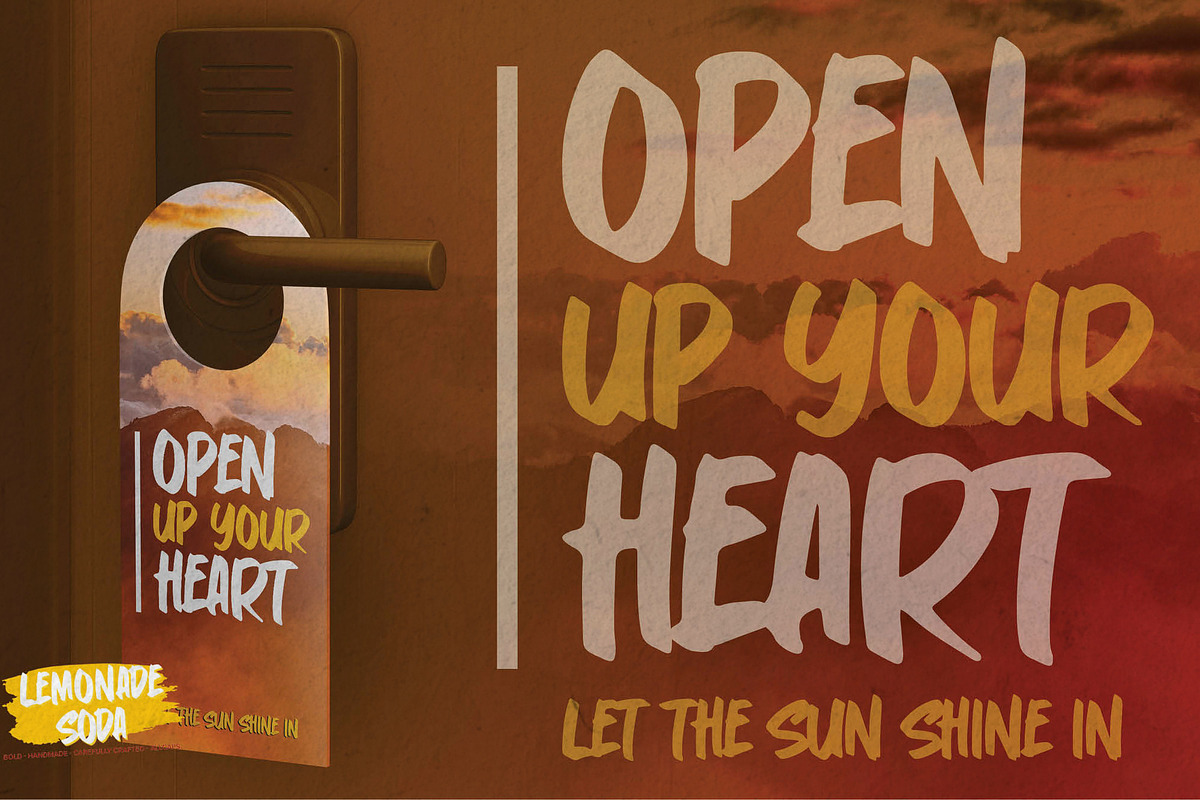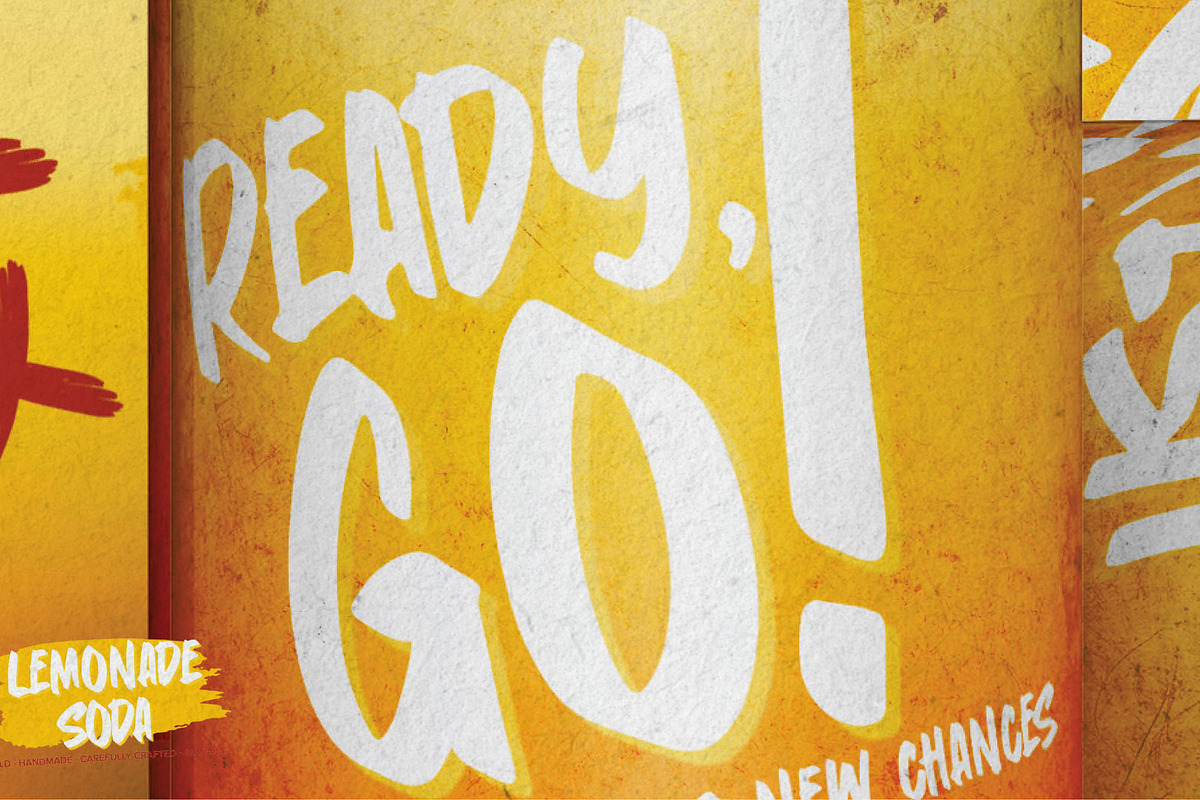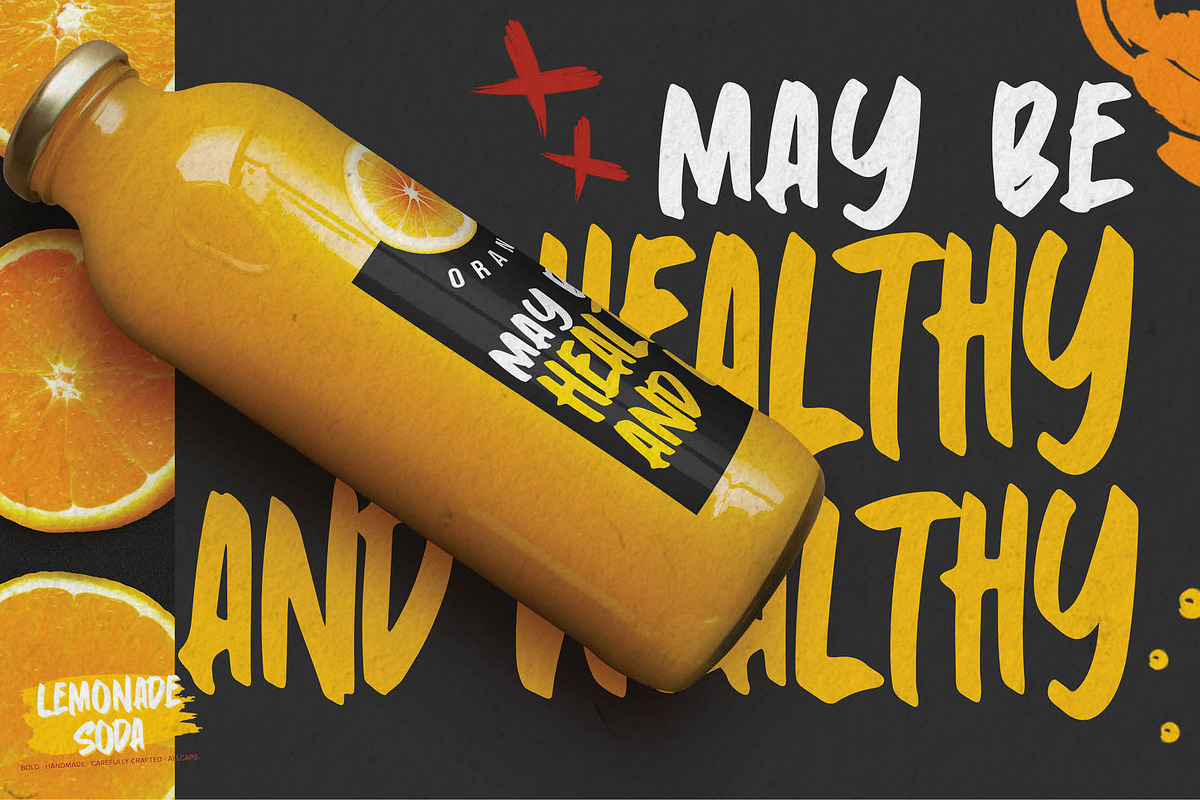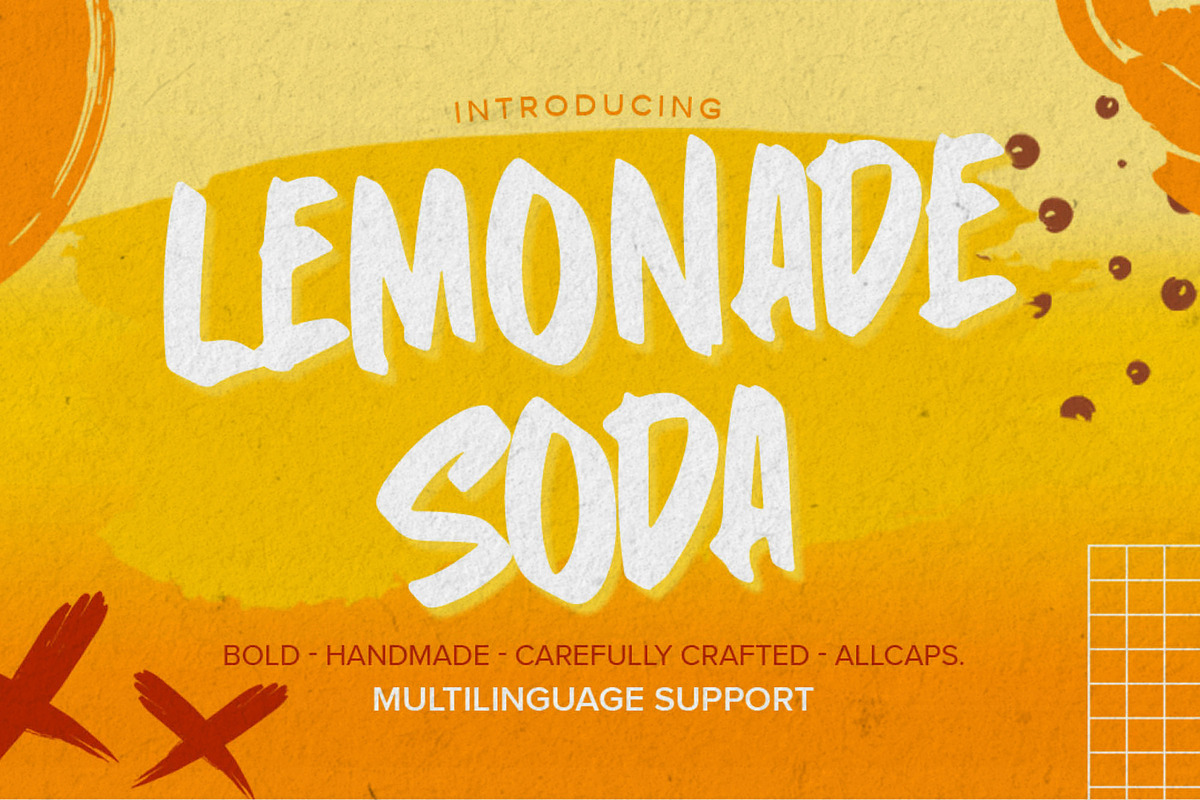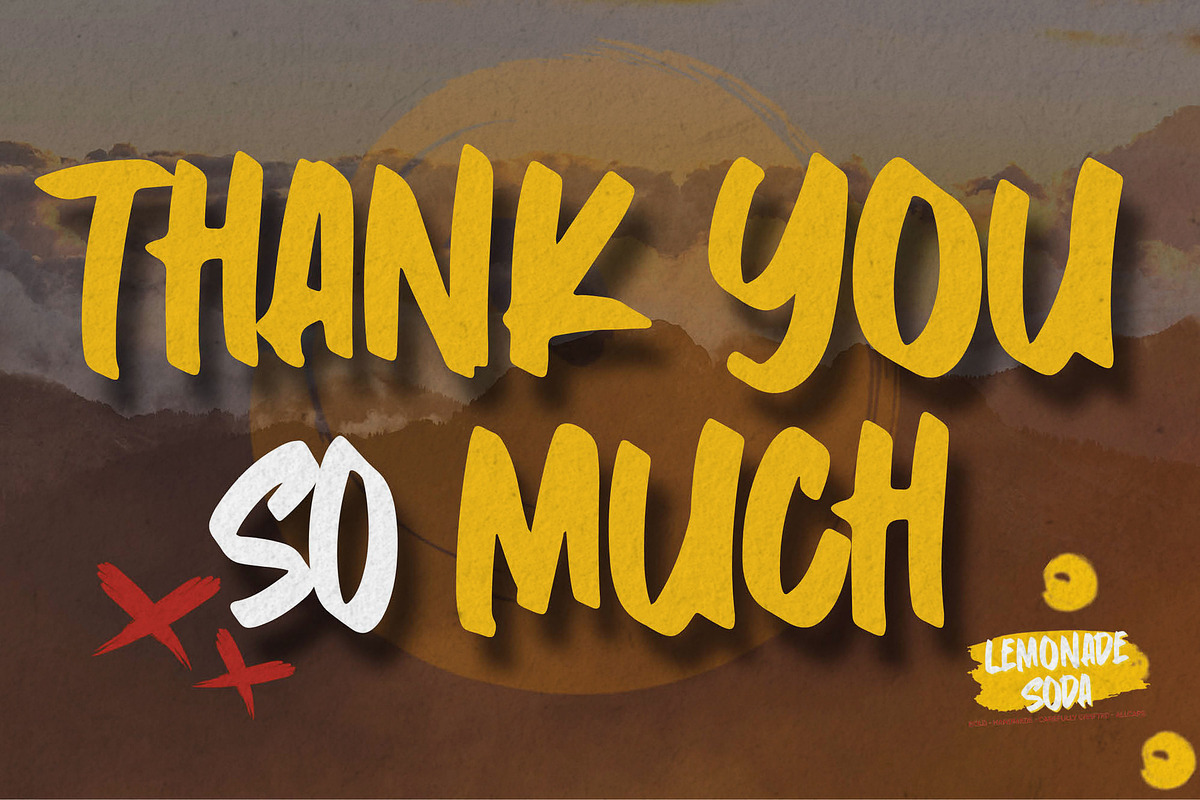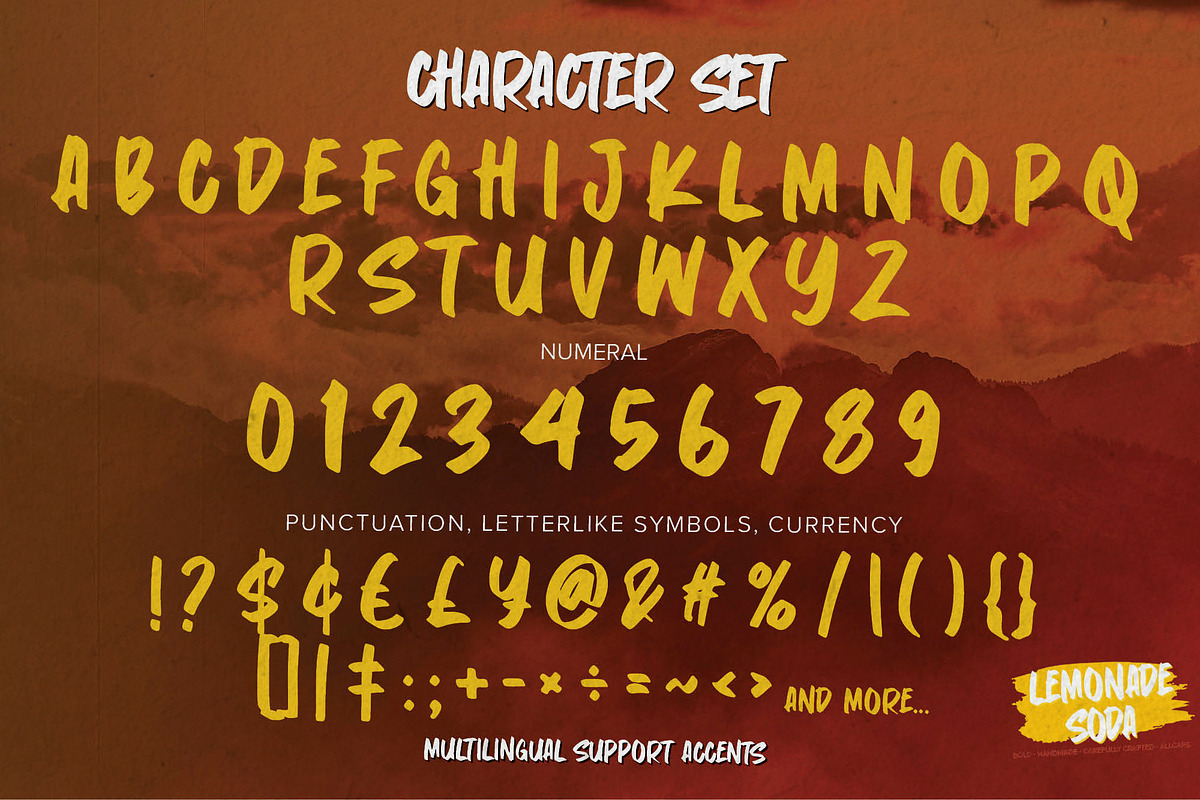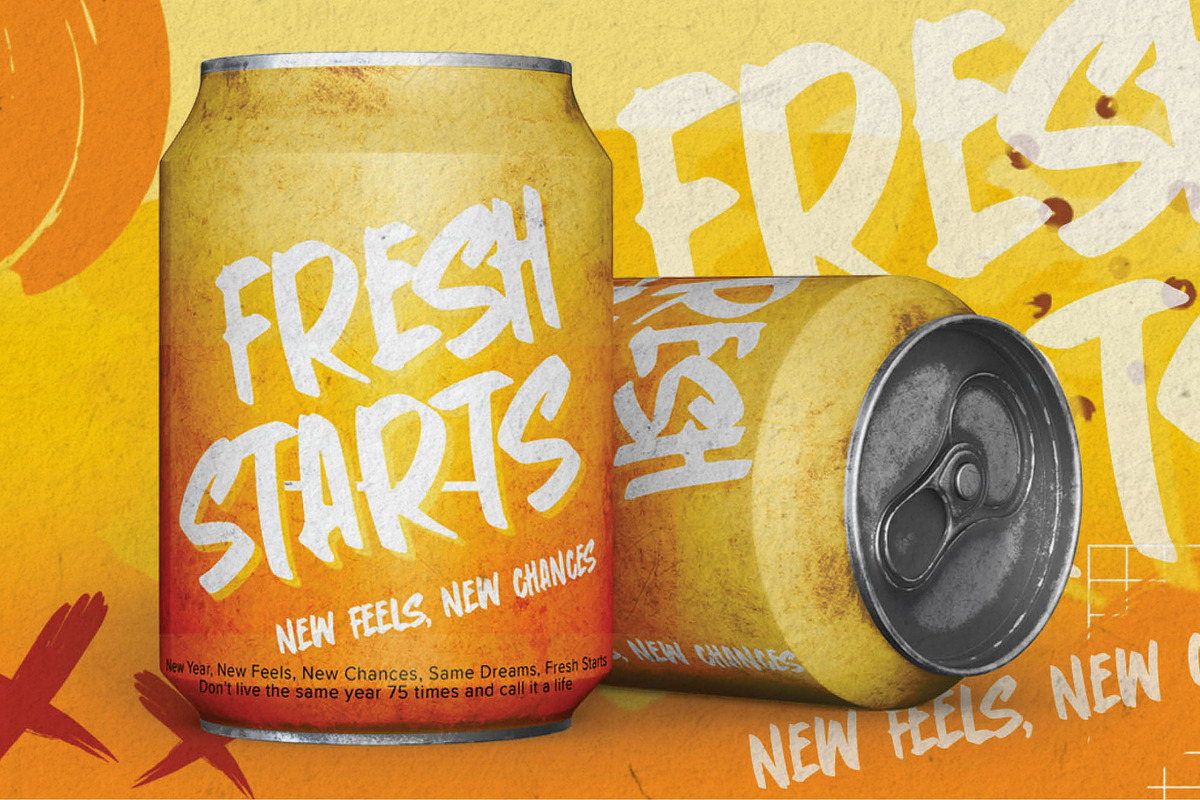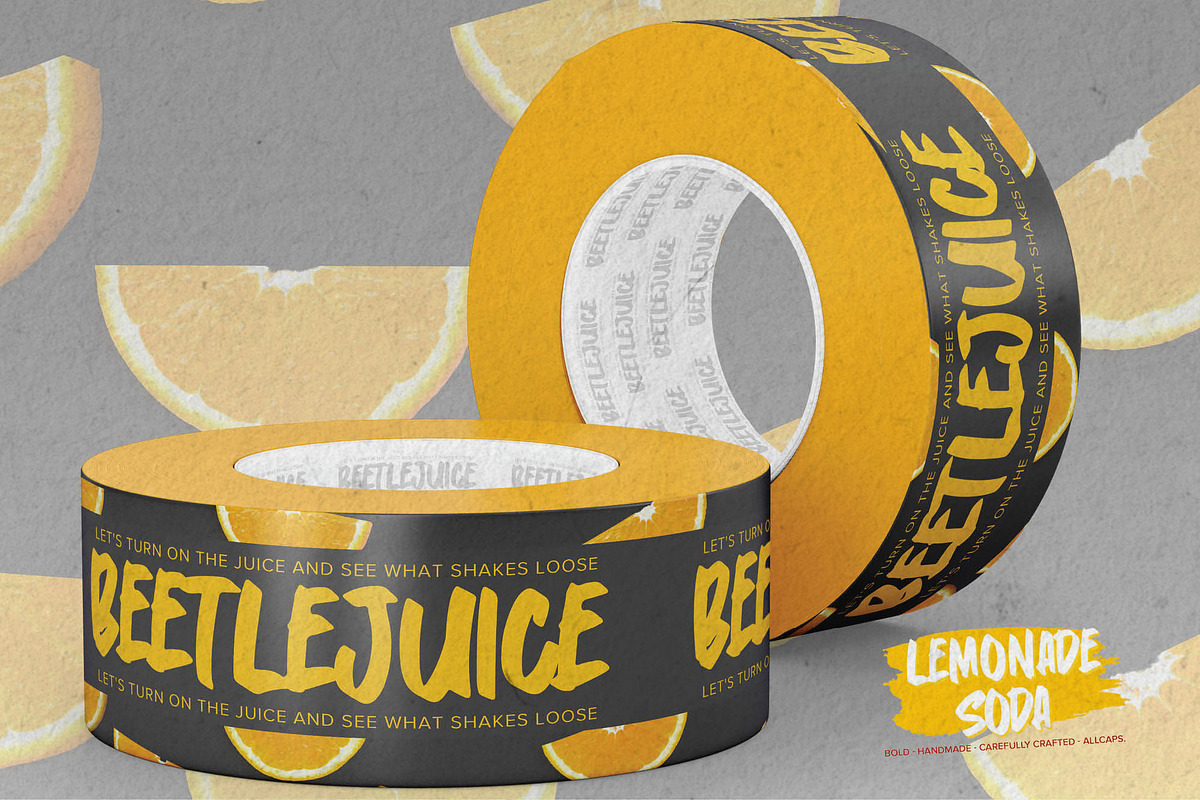
Lemonade Soda-Bold Handmade Carefull
Hello Everyone, introduce our new product Lemonade Soda - Bold Handmade Carefully Crafted All Caps Display, inspired by the title of the sports poster and We make it very energetically. Lemonade Soda font with strong and challenging nuances. very suitable for the title, typography, Poster, magazines, brochures, packaging,Websites and much more for your design needs, making your designs more modern and professional.
Inspired by Logo style and combination with Cute Craft style. that will fulfill your design needs for quotes,sporty theme, logotype, wordmark, etc. This has many opentype features and support multi language.